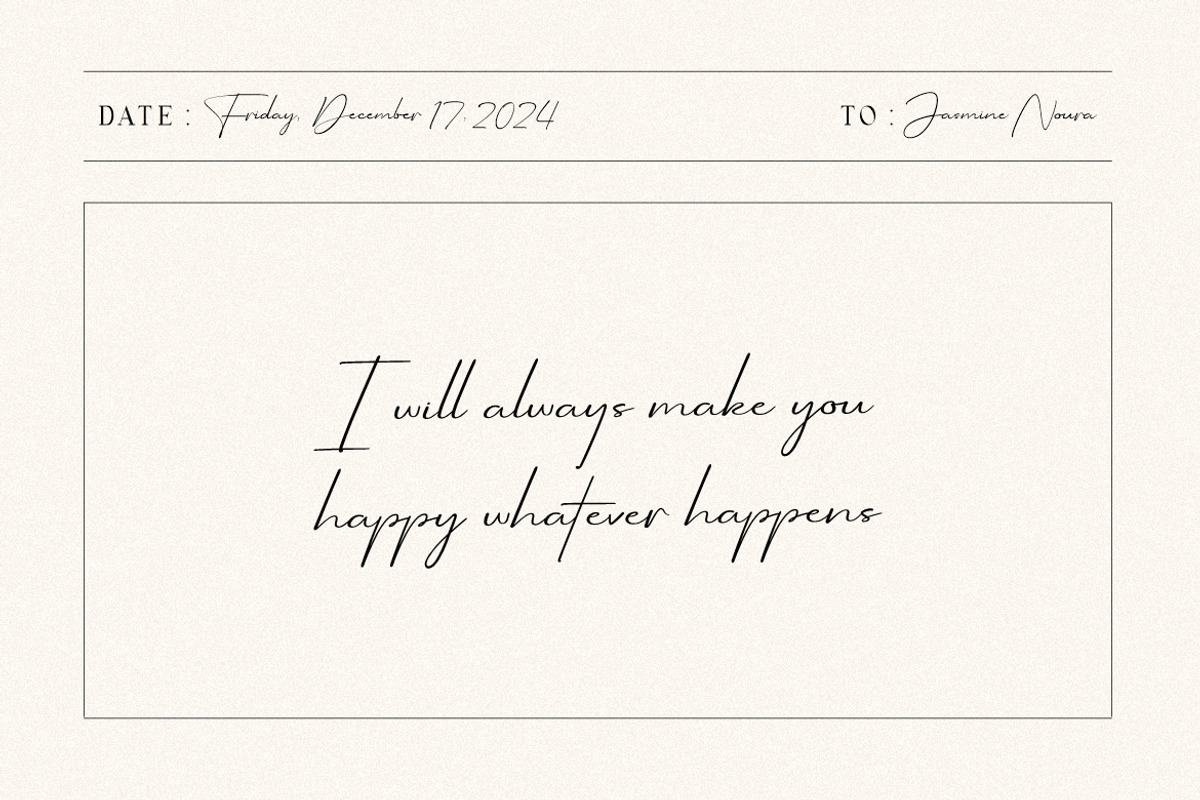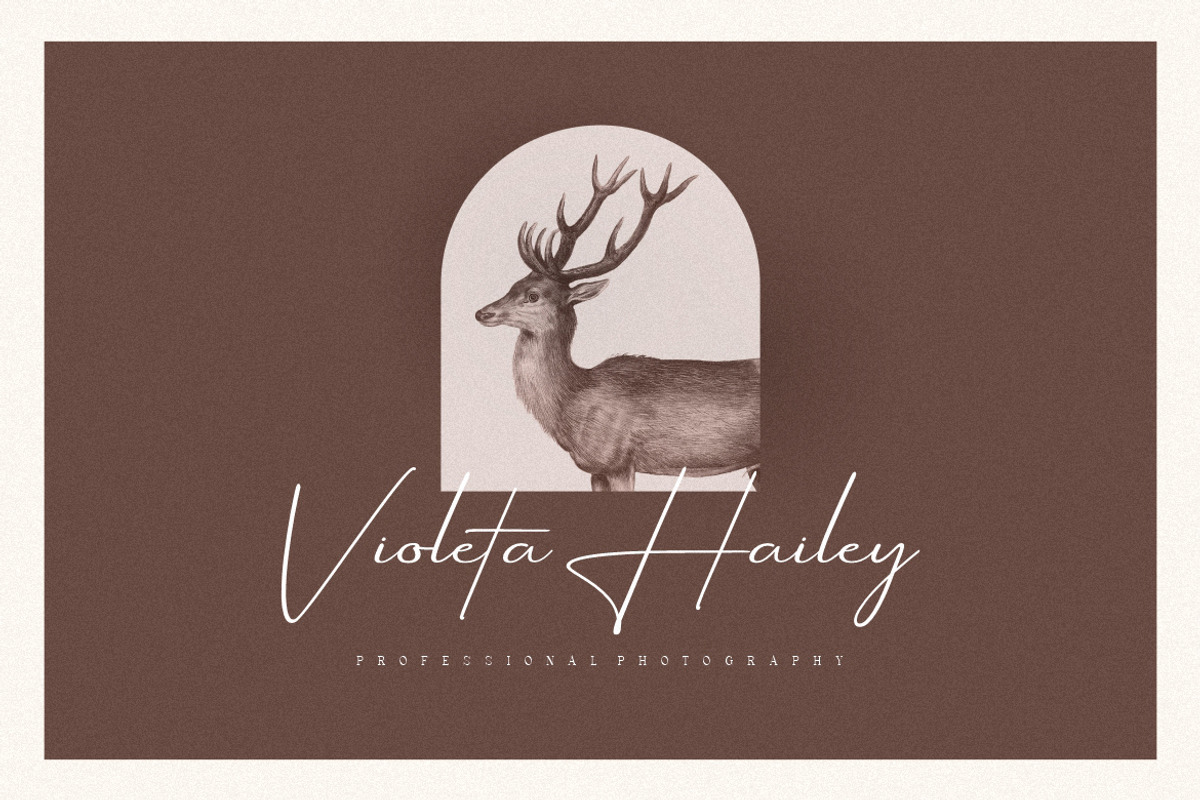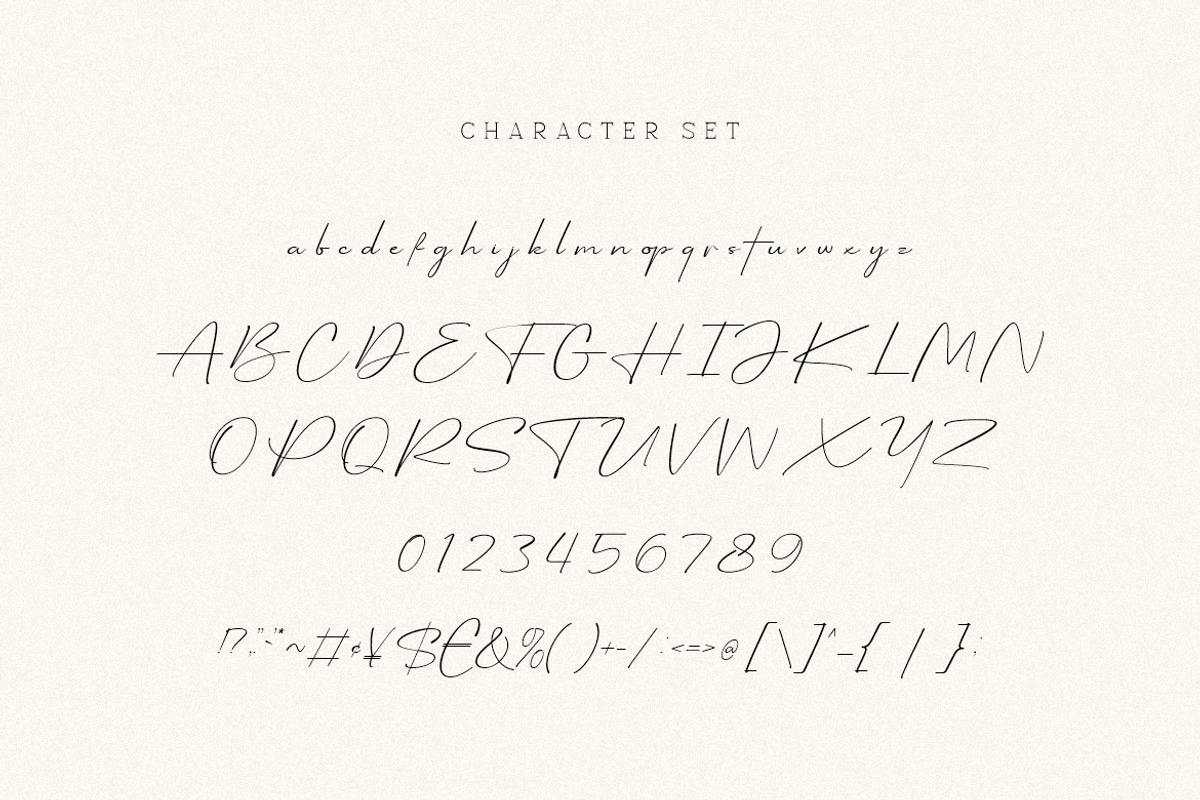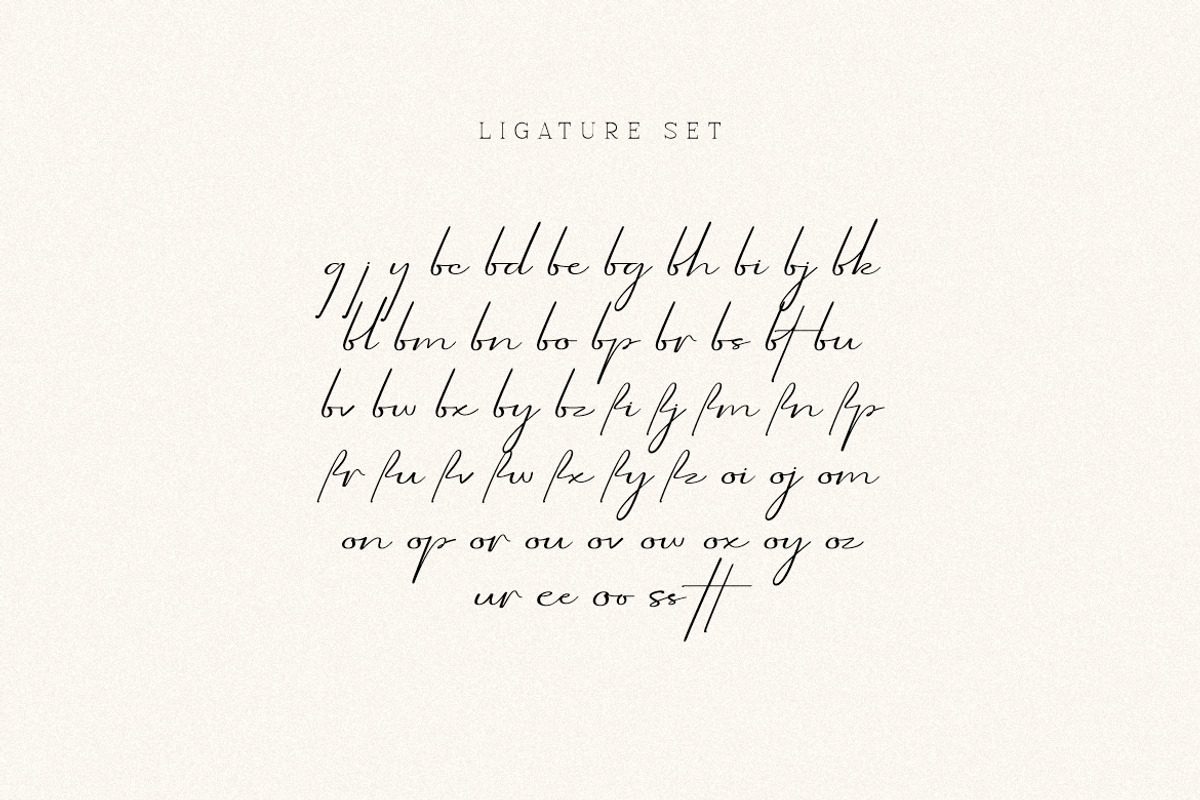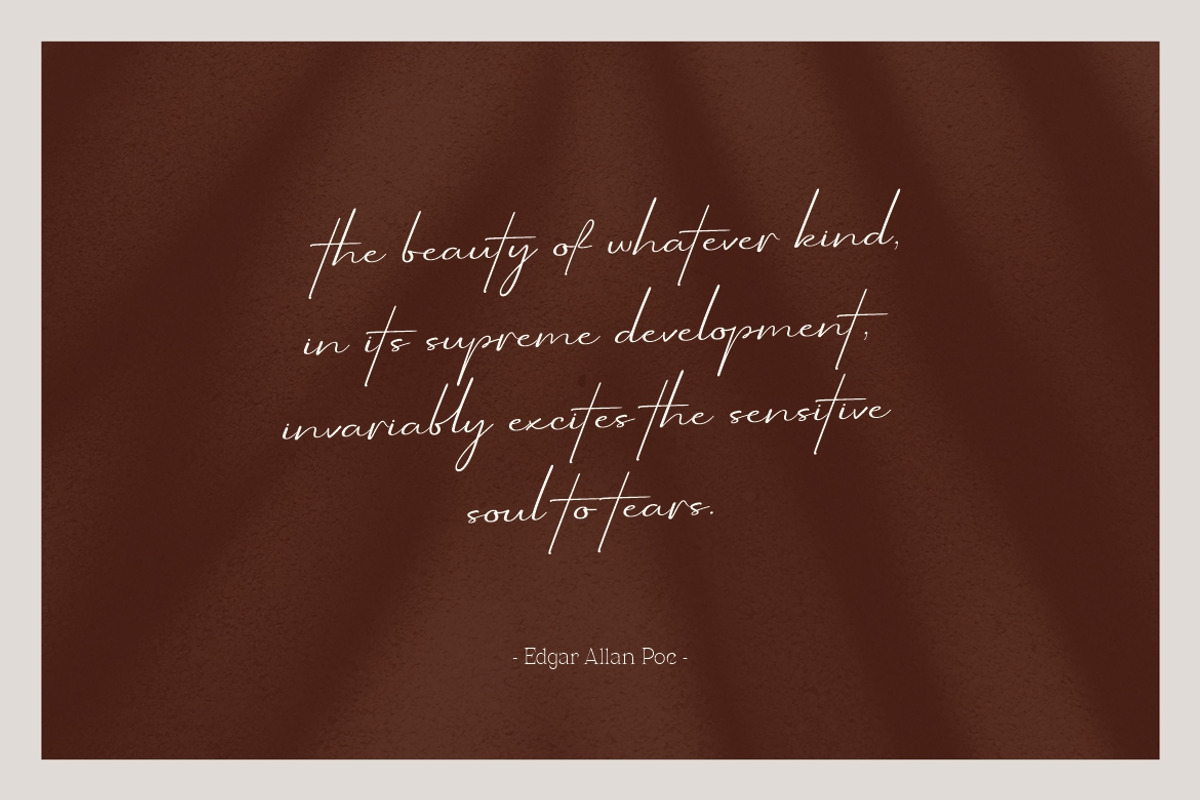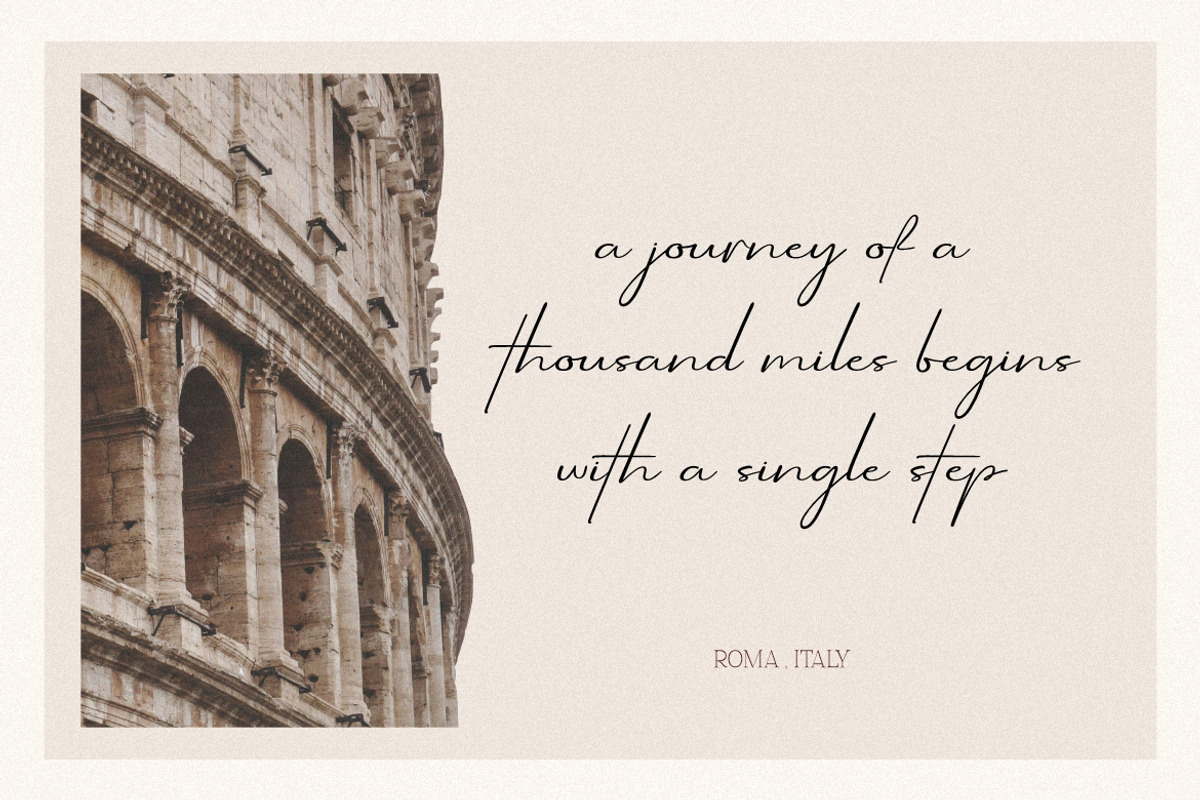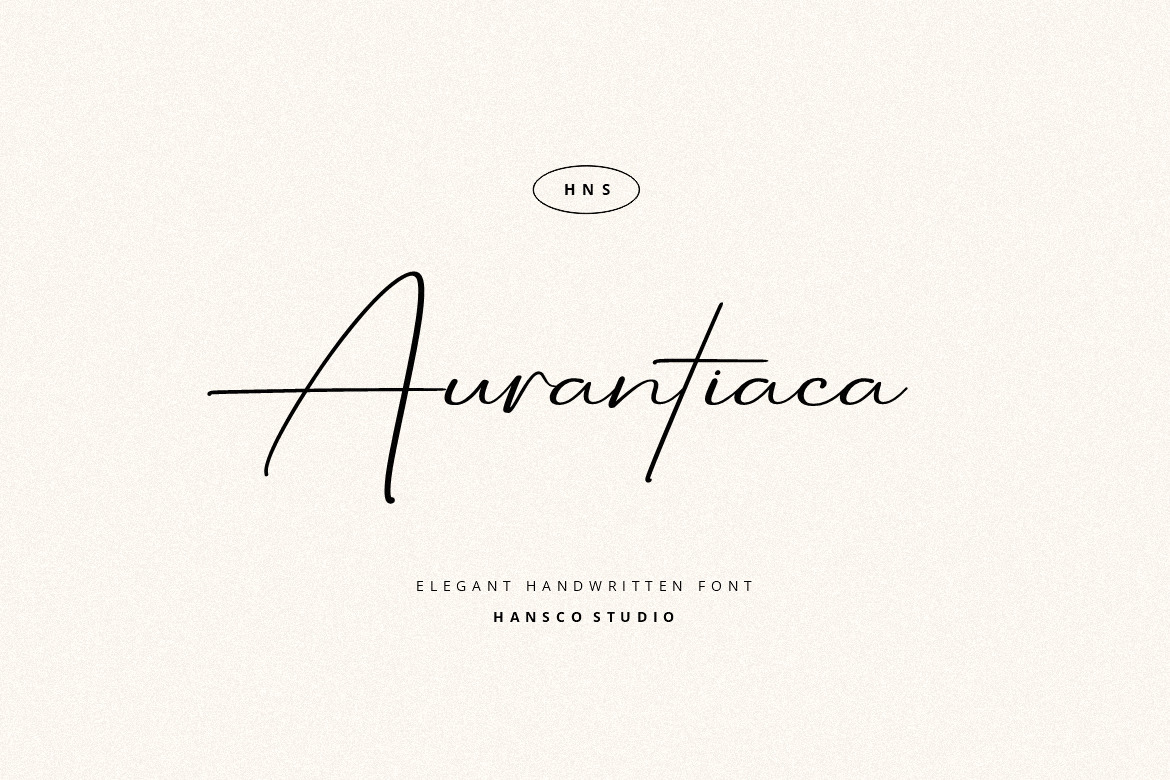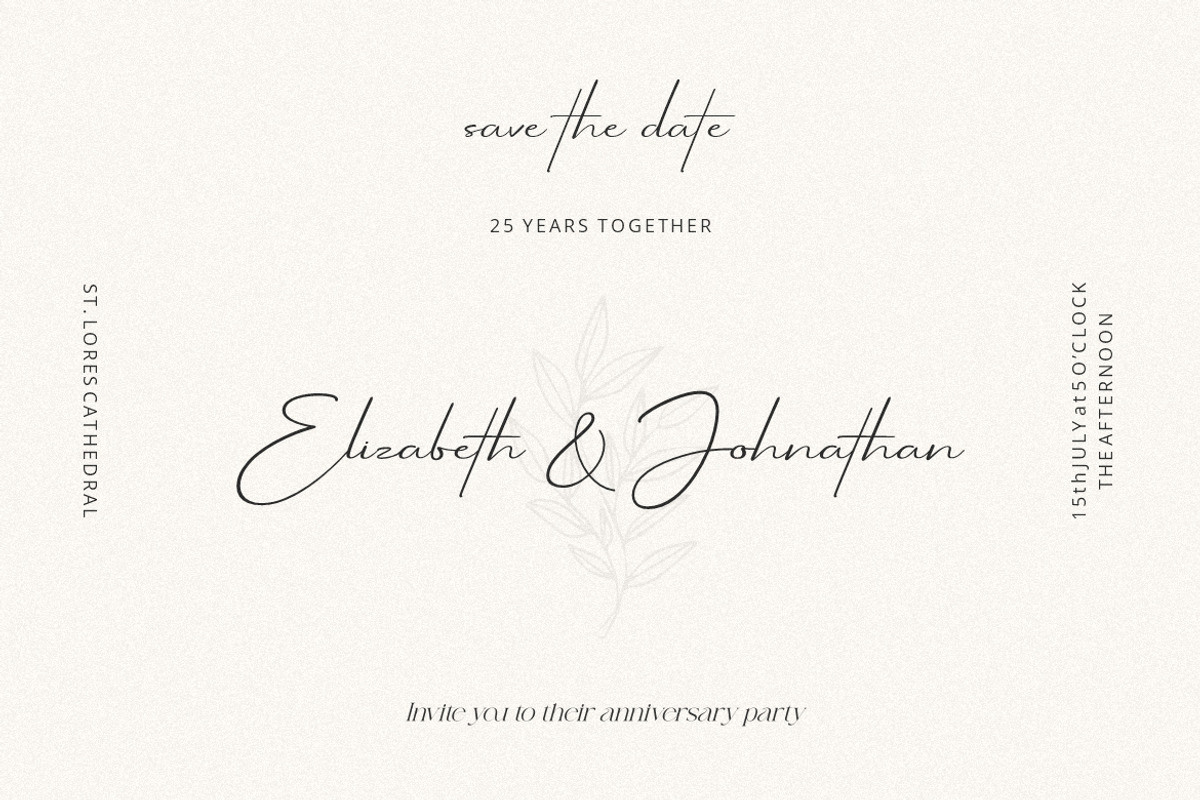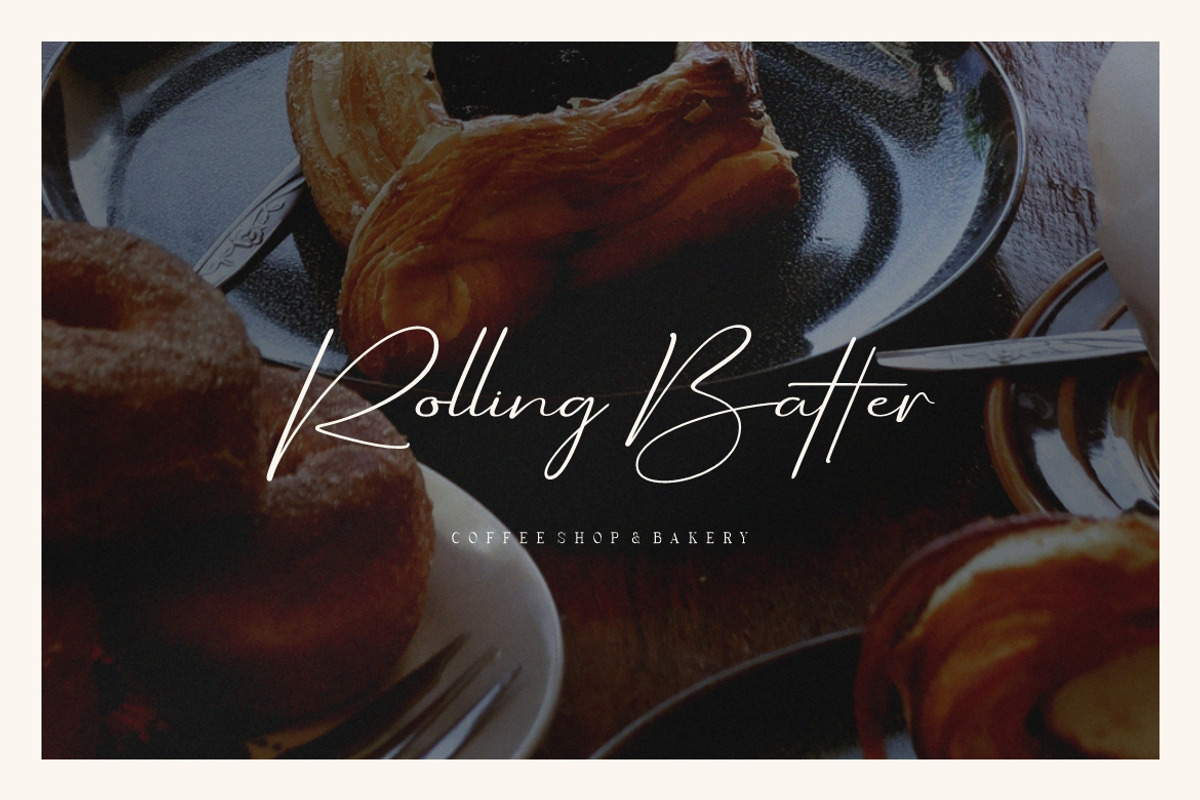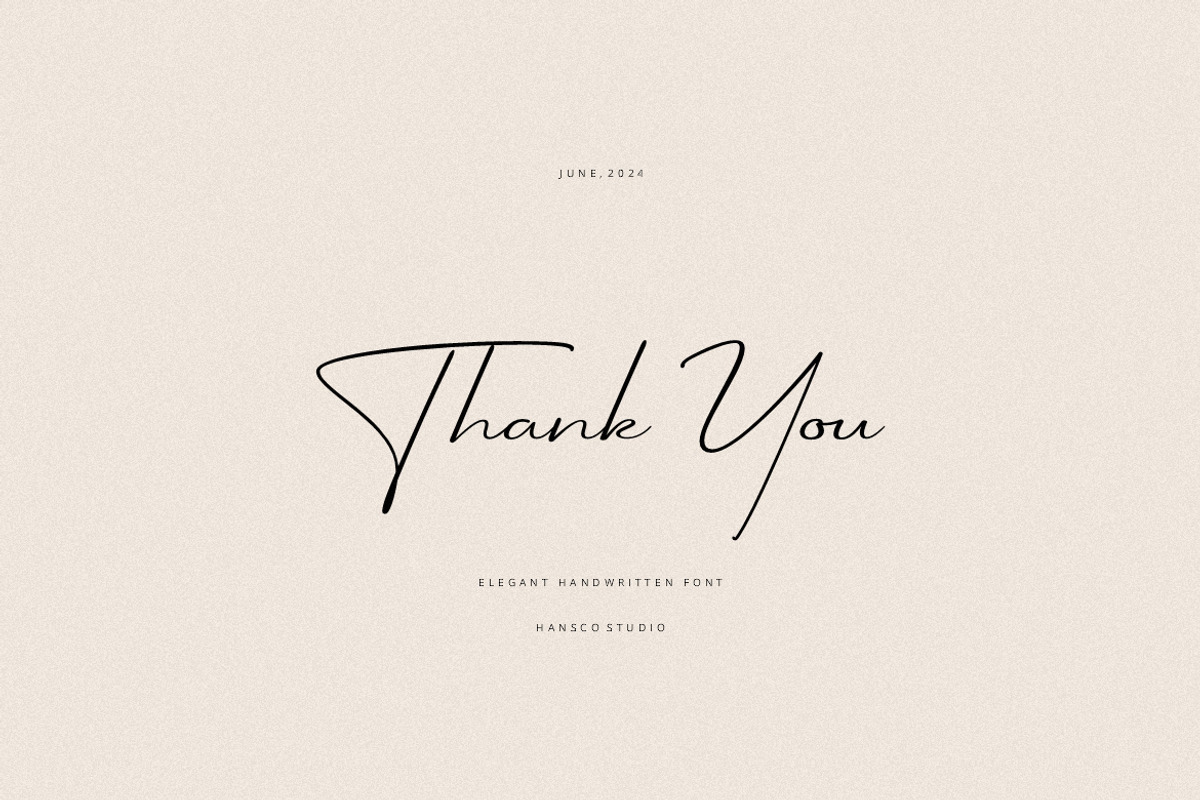
Aurantiaca Signature Font
Aurantiaca Signature is a modern, casually and feminine handwriting font. Some projects that are suitable for this font include quotes, menus, taglines, flyers, posters, invitations, greeting cards, posters, business cards, clothing, letters, stationery and many others. Comes with a full uppercase, lowercase, numbers, punctuation, ligature character and with extensive language support, it's going to be a very usable addition to your project.